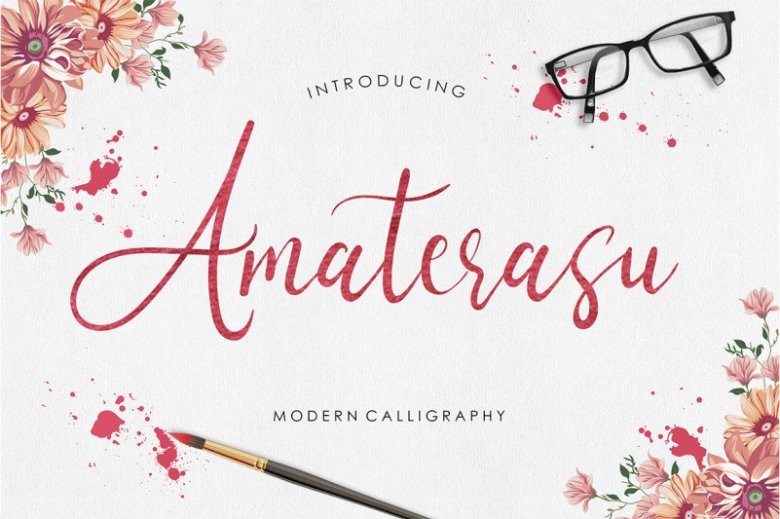
Amaterasu Calligraphy Font
Amaterasu Font – A new calligraphy script font! this font is great for your latest project. It’s designed and shared by lyanatha. Amaterasu Calligraphy Font is a beautiful calligraphy font with an unique style. It includes elegant movements and is perfect for adding some grace to your designs. Very suitable for greeting cards, branding materials, business cards, quotes, posters, and more! This font are perfect for wedding postcard. Or you can create perfect and unique design of your logo, blog, stationery, marketing, magazines and more.